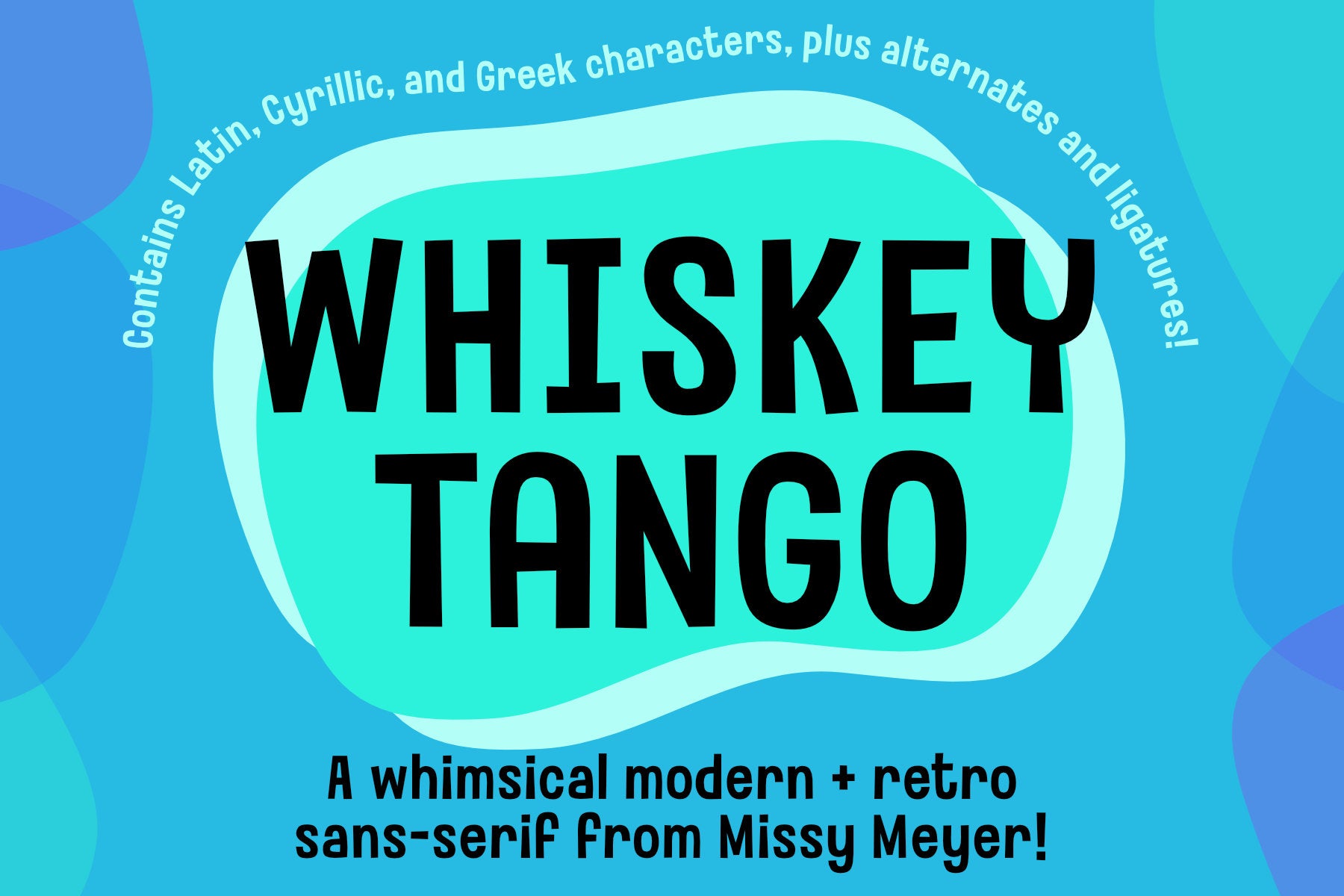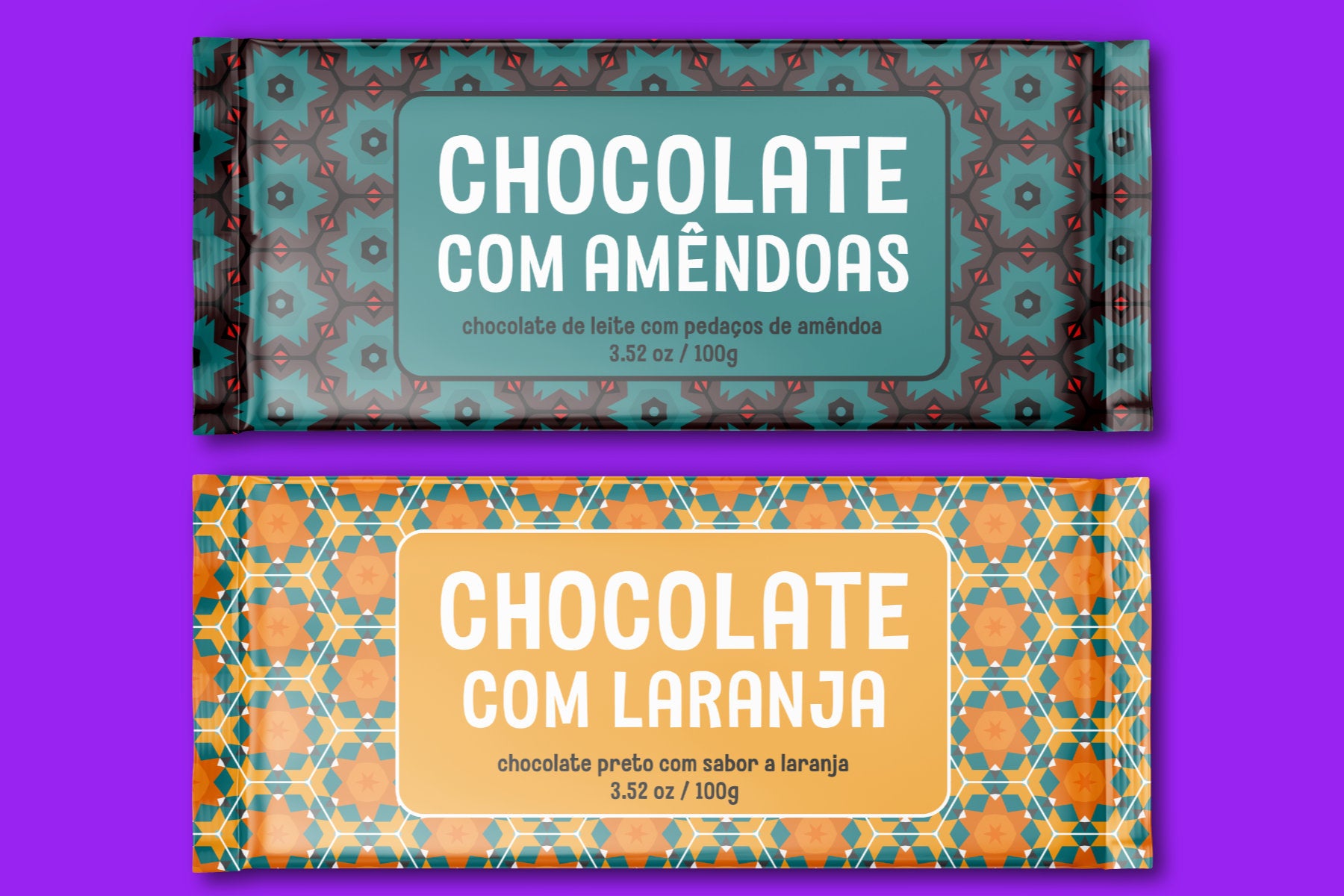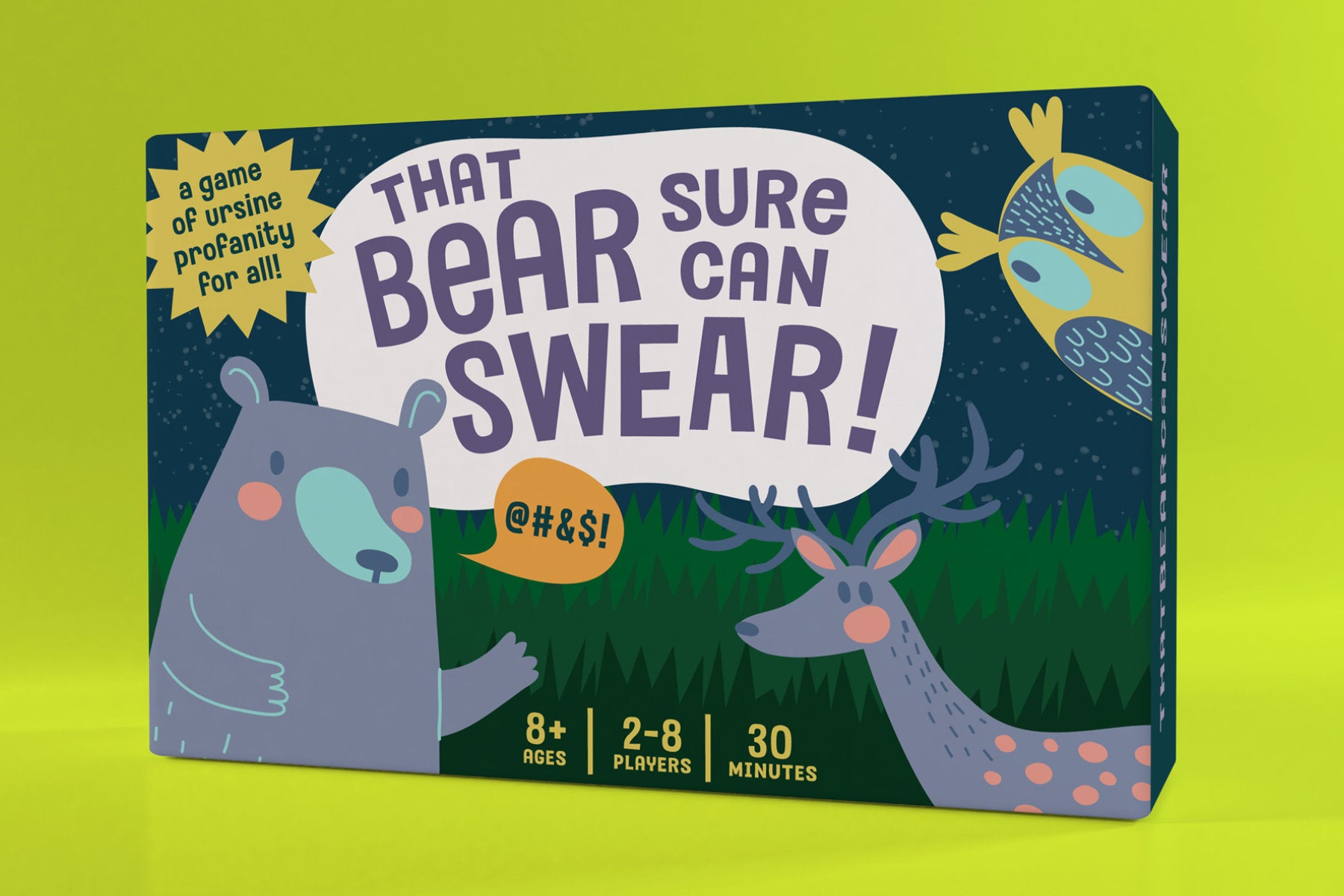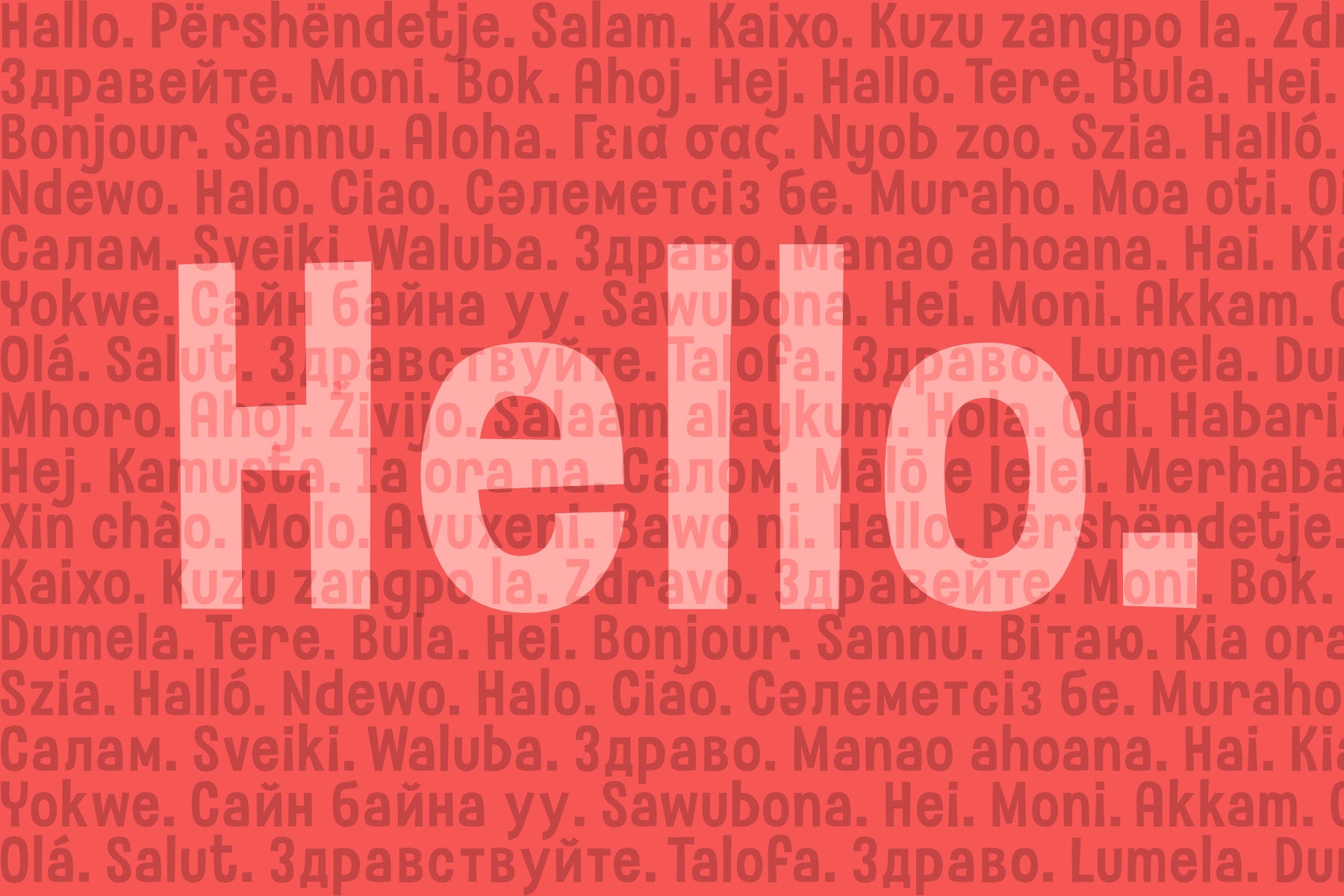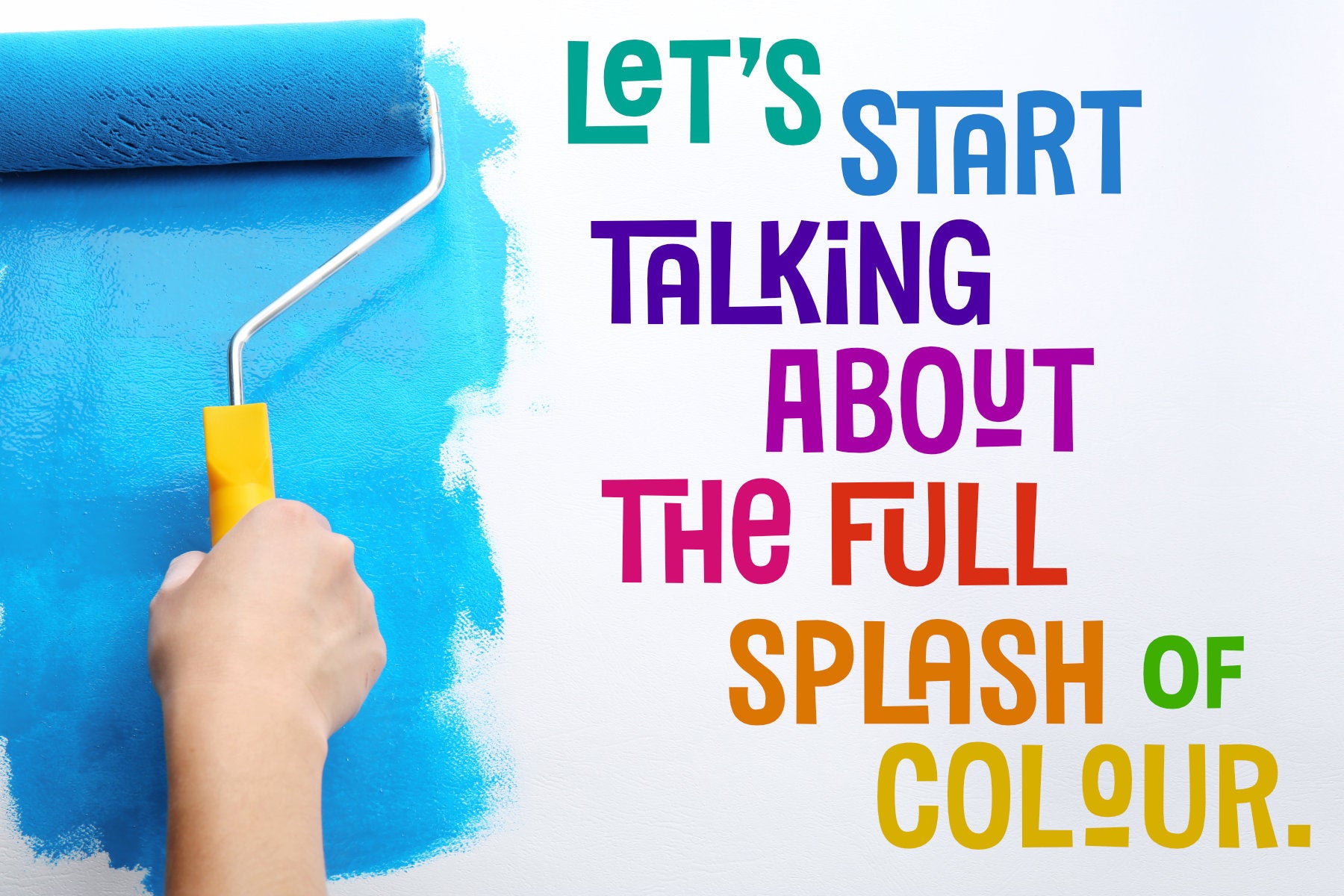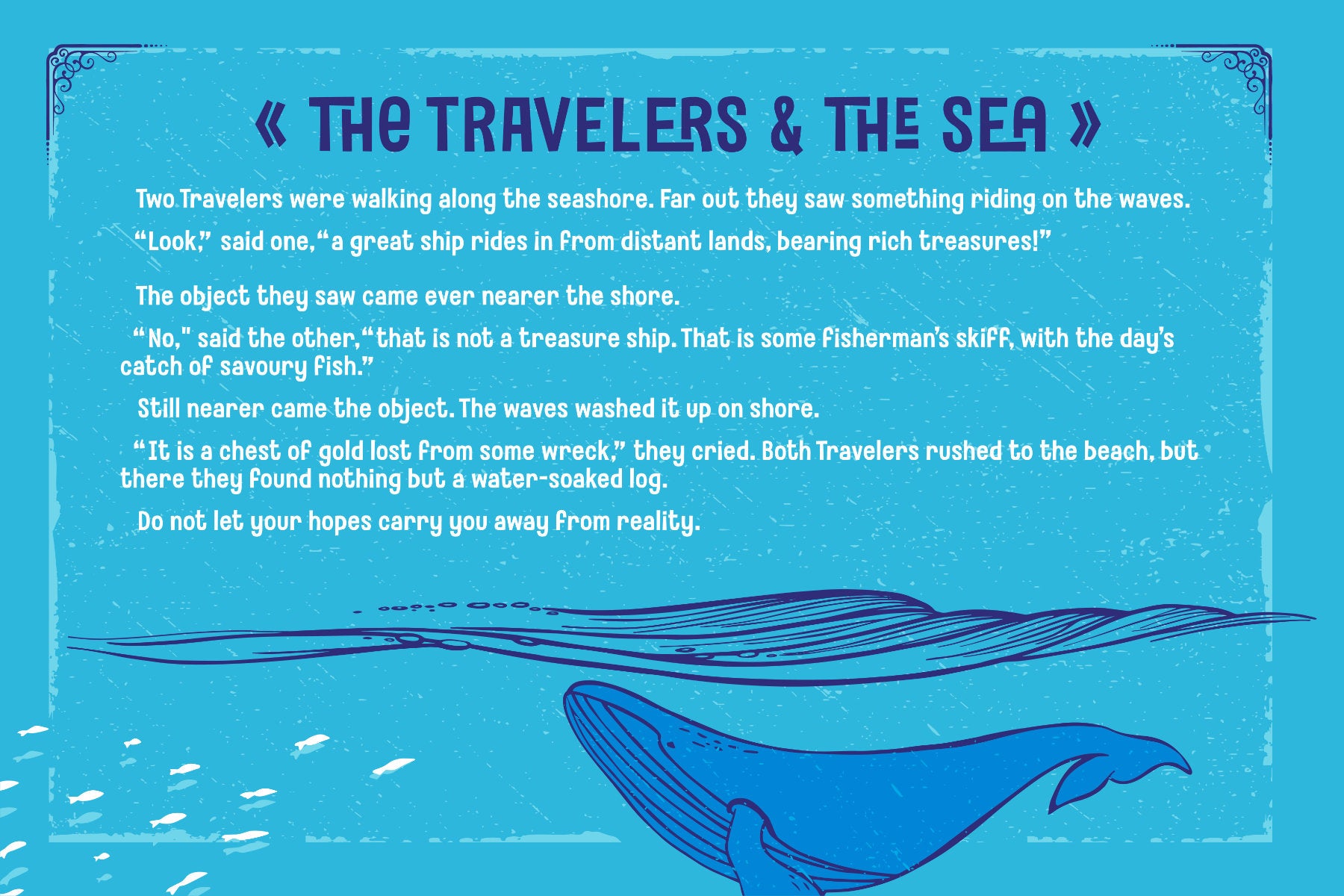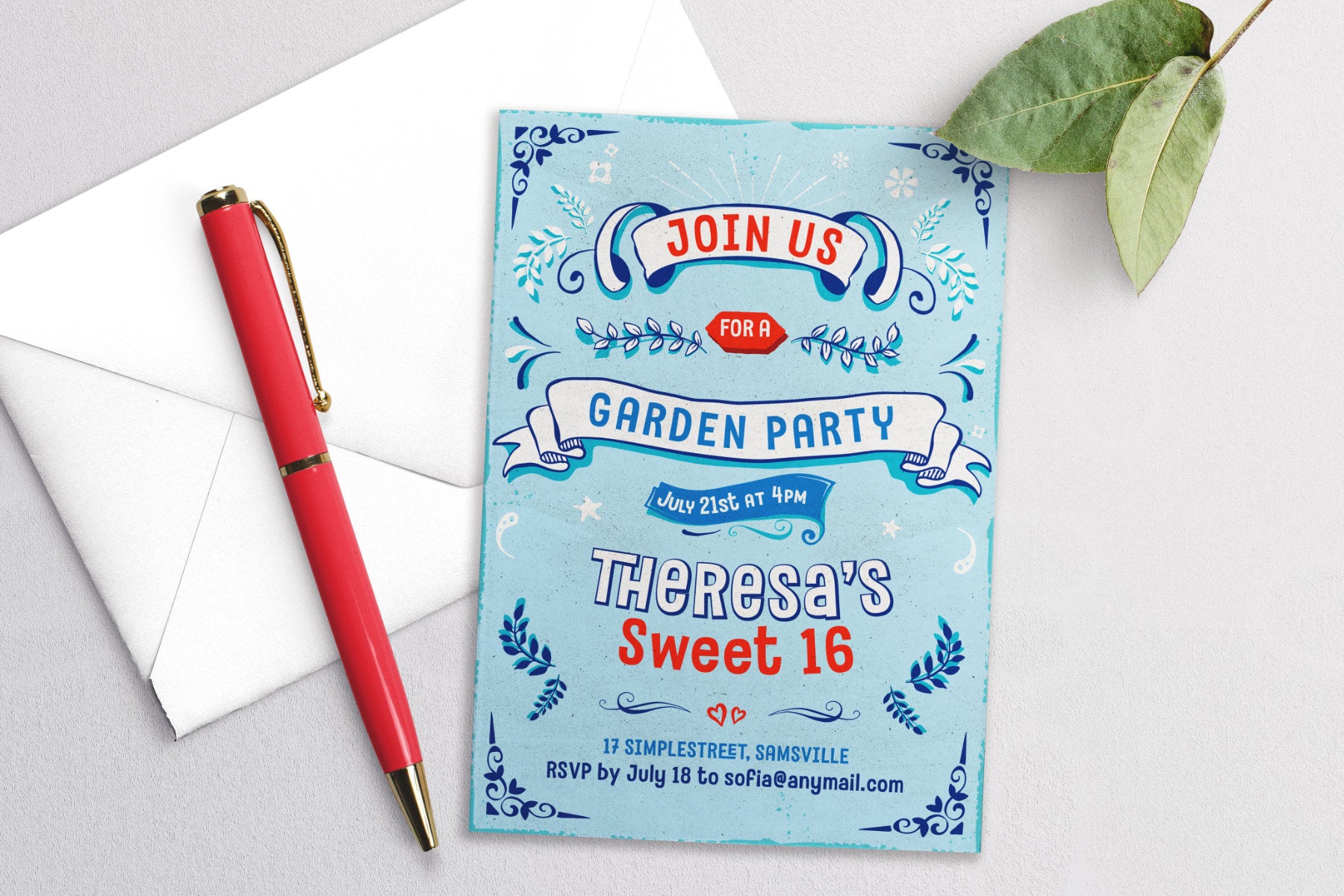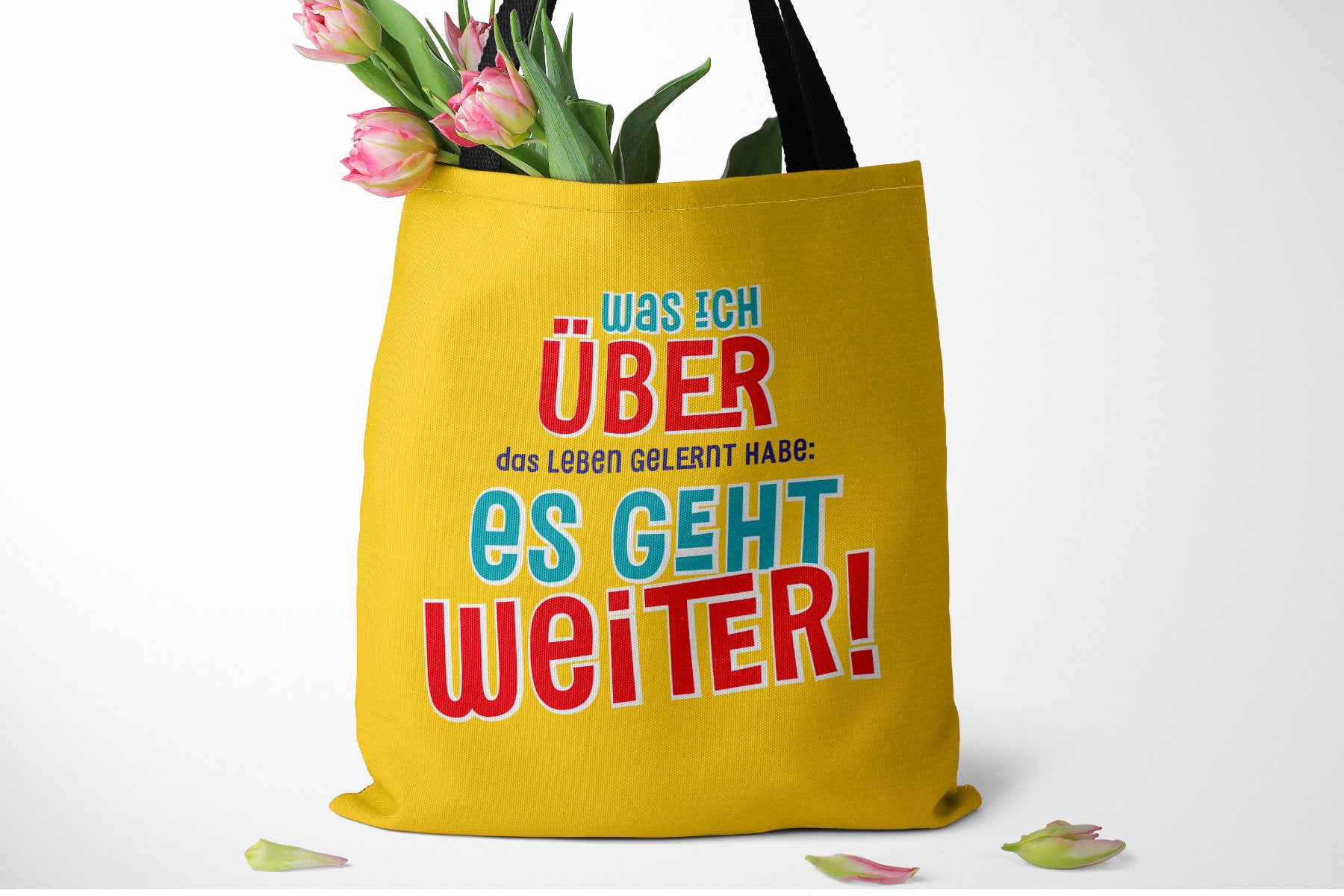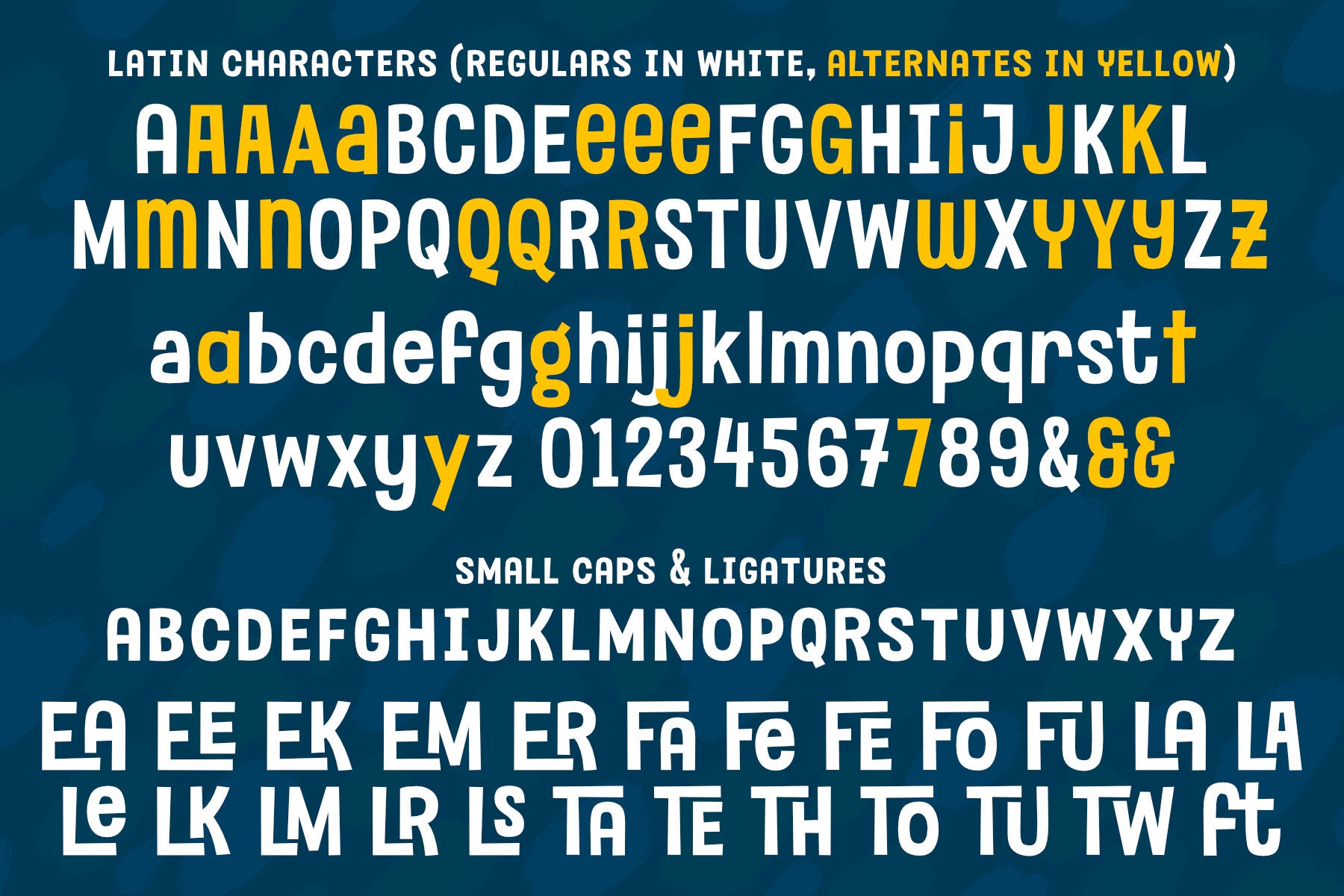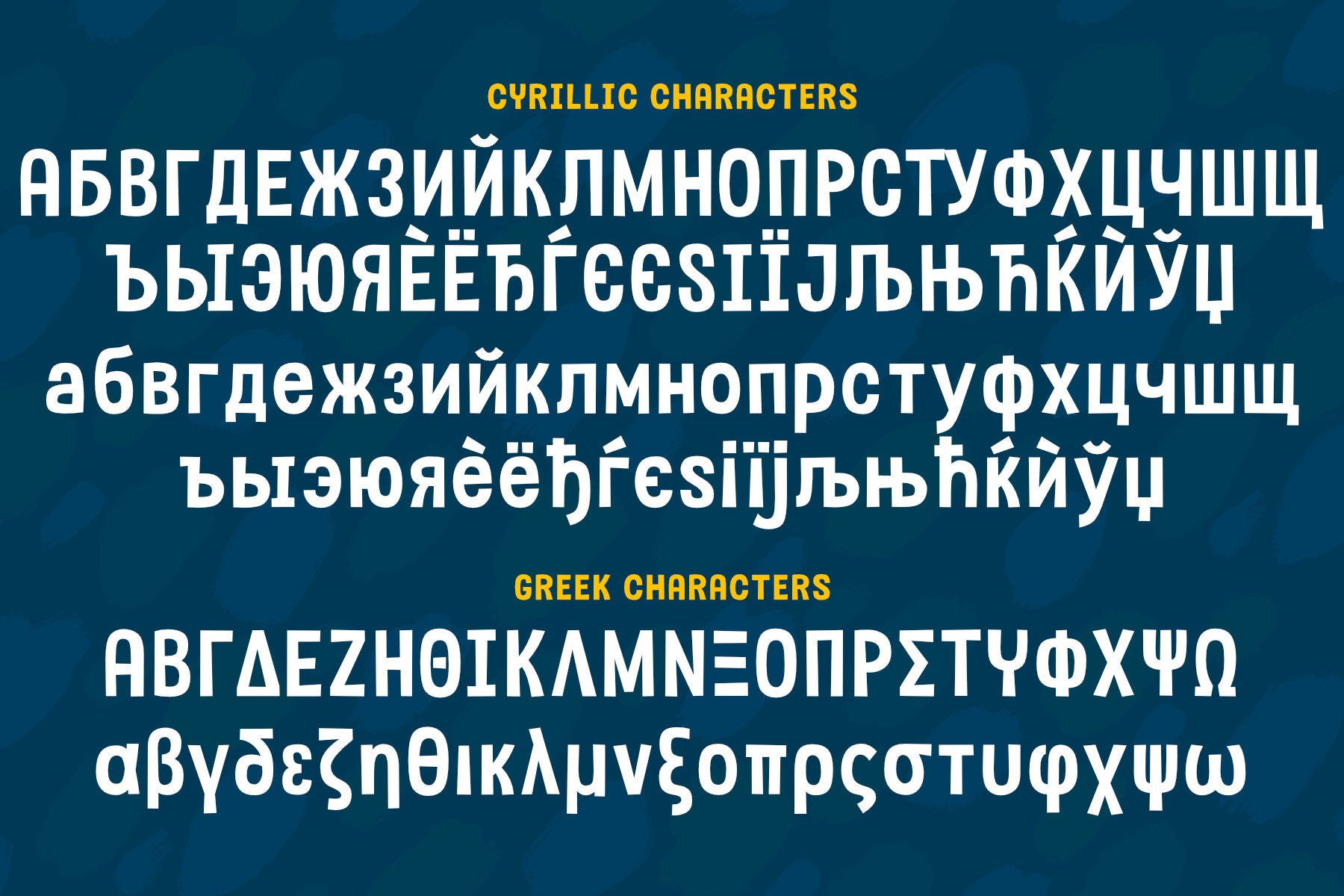
I've been in a vintage-meets-modern mood in my most recent font construction, and this is no exception. Whiskey Tango is a fun retro-style tall and narrow sans-serif font with a scoop of variety: it includes a full set of small caps, plus tons of alternates, multi-letter ligatures, and ordinal indicators.
There's just enough imbalance in stroke widths to make this font a little goofy and quirky, and really charming. All of the lines and curves are clean and sharp, making it great for printed text that's large, medium, or small. And it's great for crafting as well!
As usual for me, this font contains over 300 extended Latin characters, as well as full uppercase and lowercase sets of Greek and Cyrillic characters, to support a ton of languages! And everything, as always, is fully encoded in the Unicode Private Use Area so all characters are easy to access, no matter what method or software you use.